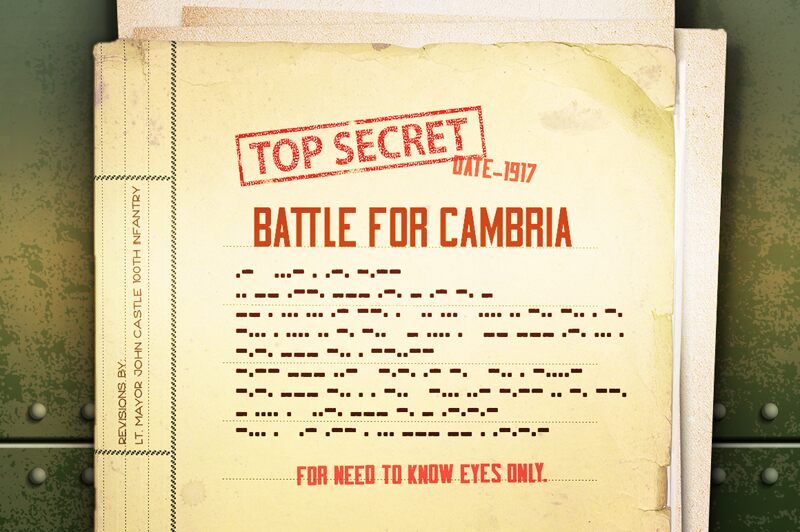
Bootcamp - Morse Code is a rough style part of a font family from a military inspired concept of World War 1. The font comes with 79 glyphs characters. Ill appreciate your support if possible, Thanks!
Bootcamp Morsecode